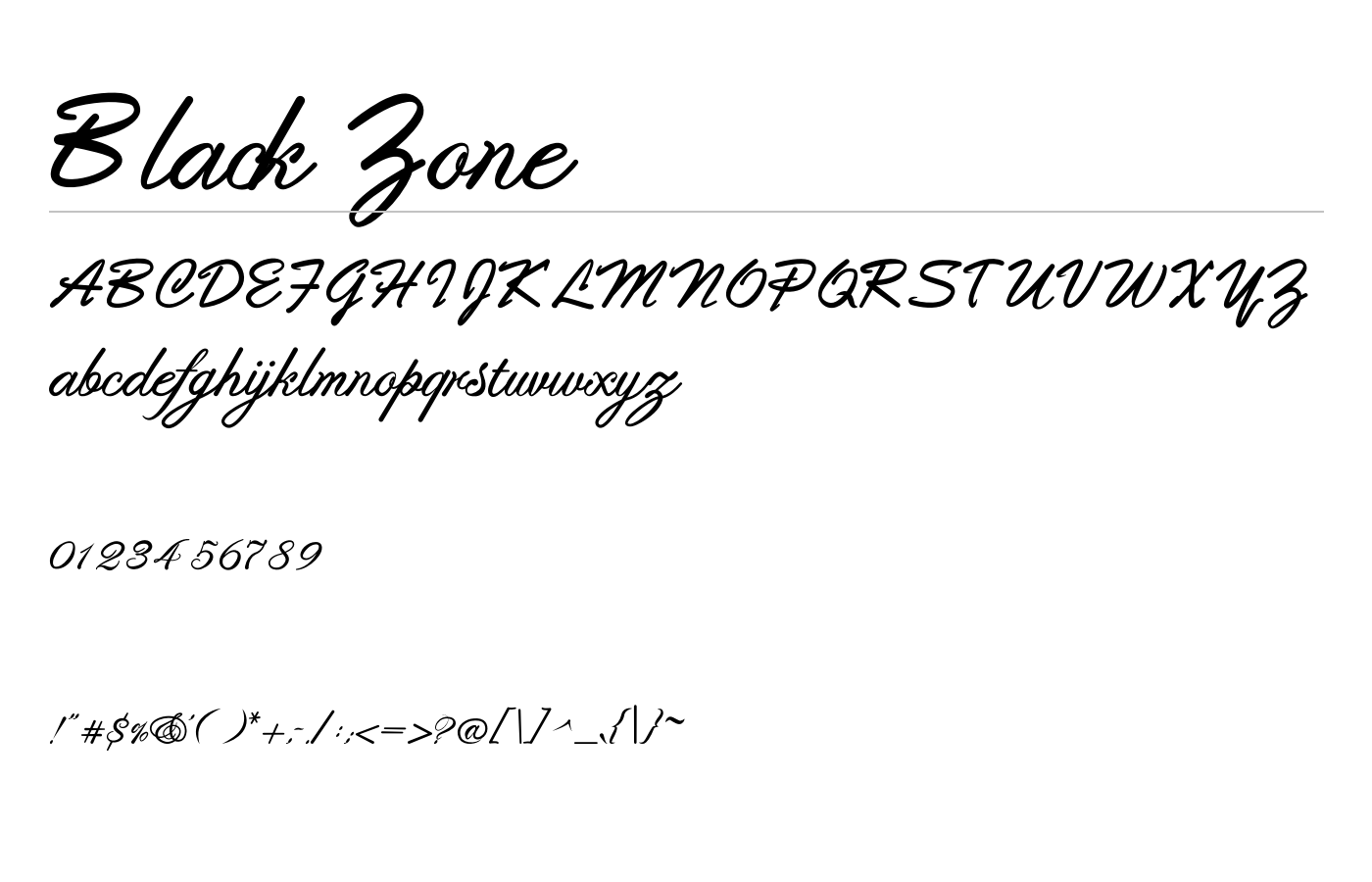
Black Zone is an elegant script font featuring smooth, flowing strokes with a natural, handwritten feel. Its slender weight and moderately high x-height create a refined yet approachable style, making it perfect for invitations, branding, and any design that needs a touch of sophistication and personality. This font shines in creative projects where a graceful, stylish impression is desired.
Black Zone Font
About Black Zone Font